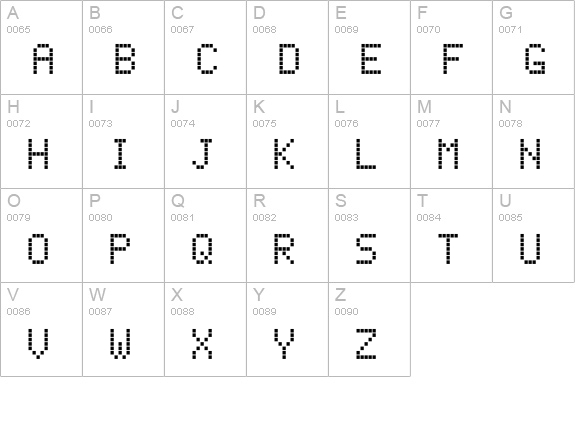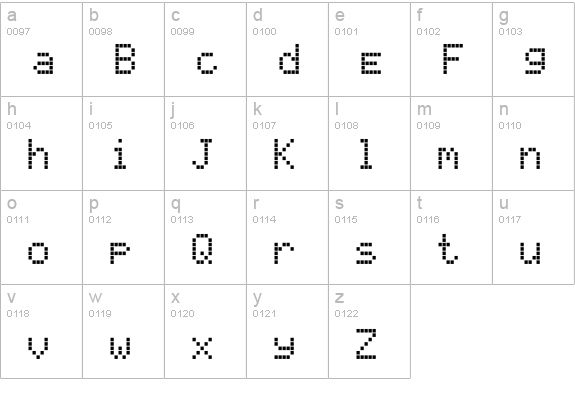
Texas LED Font Details
The Texas LED font is a stunning display typeface that effortlessly captures the spirit of the Lone Star State. Its bold and dynamic letterforms are reminiscent of the iconic LED signs that light up the bustling streets of Texas cities. With its sharp angles and clean lines, this font exudes a sense of power and modernity, making it perfect for eye-catching headlines, logos, and signage. What sets the Texas LED font apart is not just its striking design but also the fact that it is freely available to download. Yes, you read that right – this impressive typeface can be yours without any cost. Thanks to FontsMarket.com, you can easily access and download the Texas LED font and use it in your personal and commercial projects. Whether you're a designer, a marketer, or someone simply looking to add a touch of Texan flair to your work, this font is a fantastic choice. With its versatility and unique aesthetic, the Texas LED font can be used in various creative endeavors. Imagine seeing your brand's name illuminated in glorious LED lights, or catching the attention of passersby with an eye-catching sign that demands attention. The possibilities are endless with this font, and the best part is, it won't cost you a dime. So don't miss out on this amazing opportunity – head over to FontsMarket.com today, and download the Texas LED font for free. Let your creativity shine bright with this captivating typeface, and give your designs that unmistakable Texan charm.